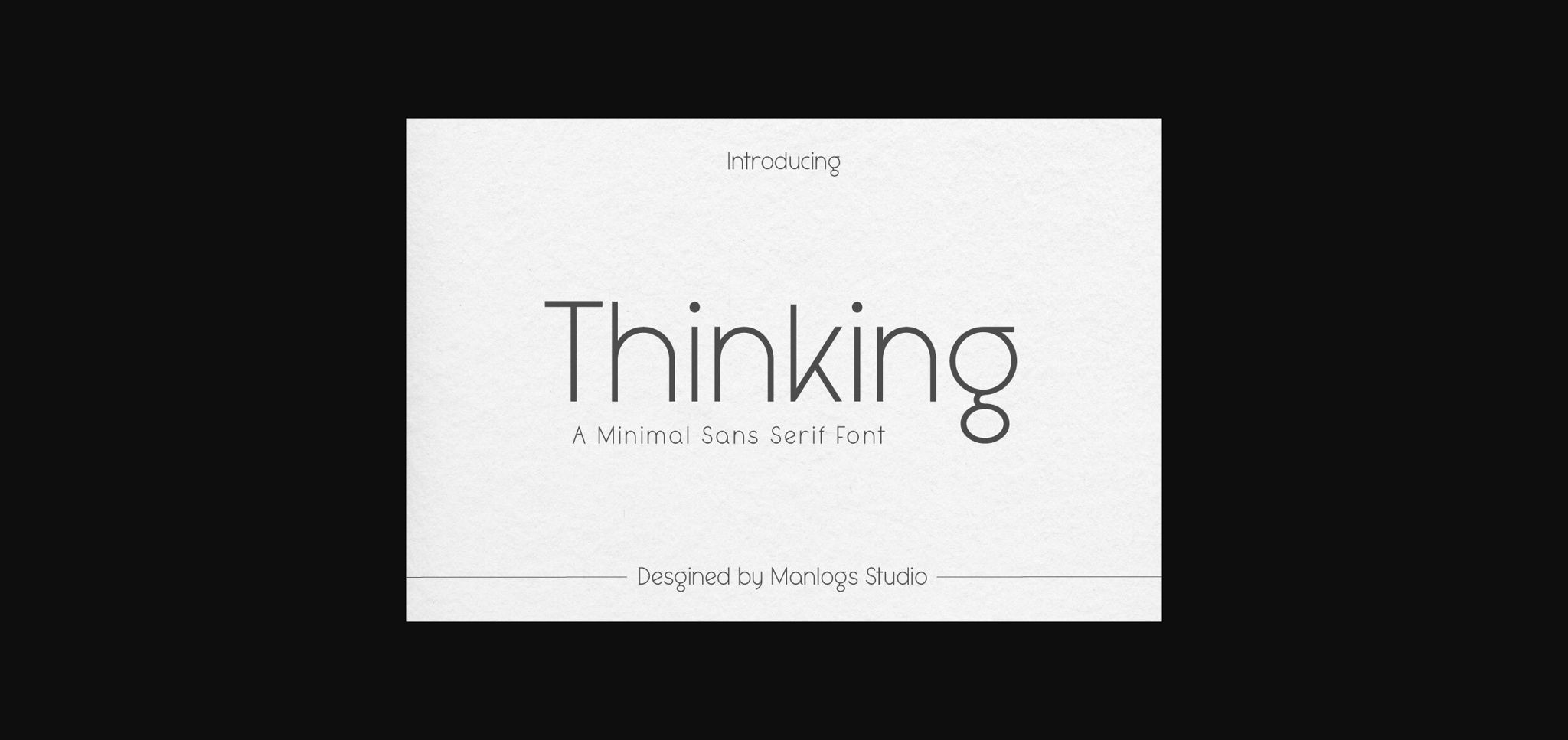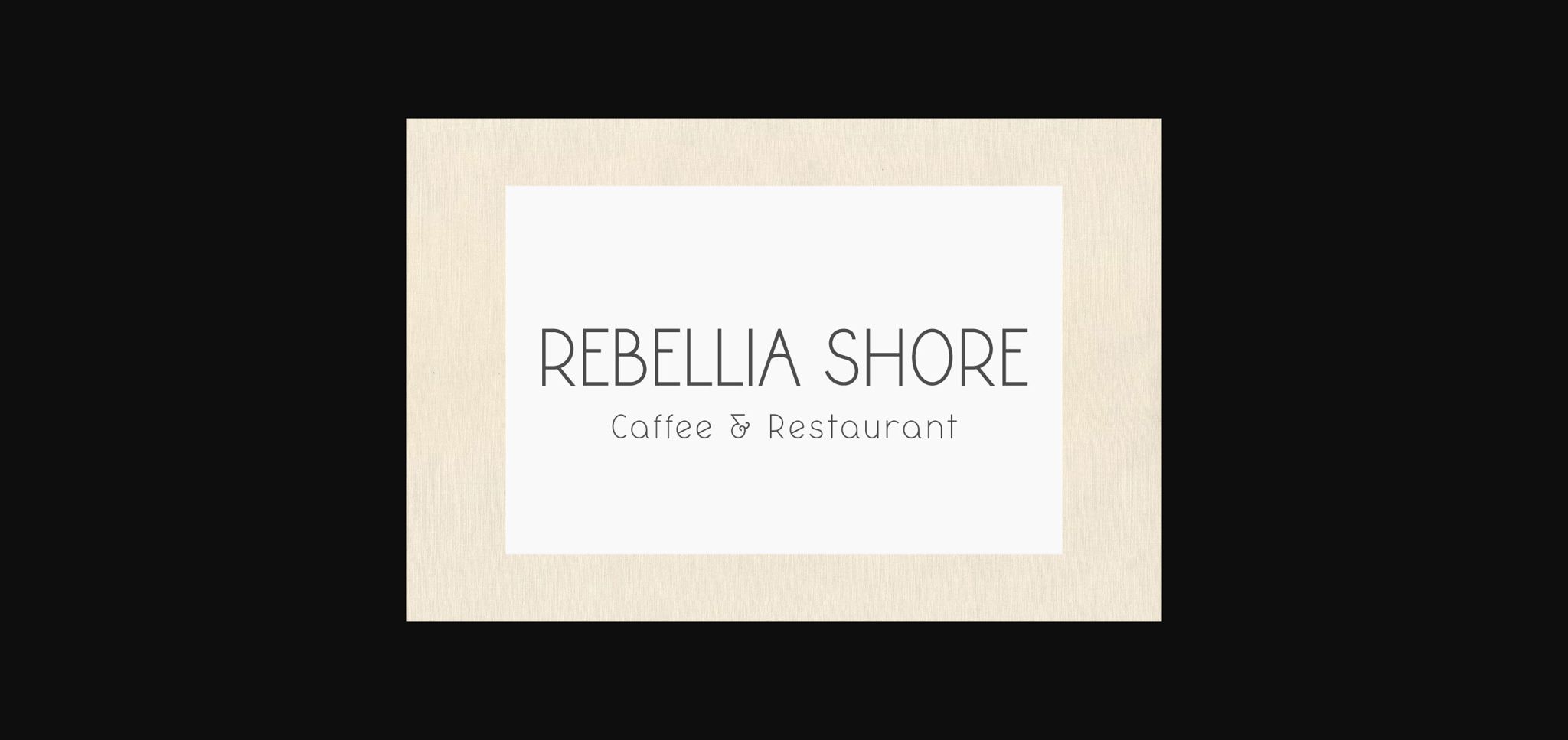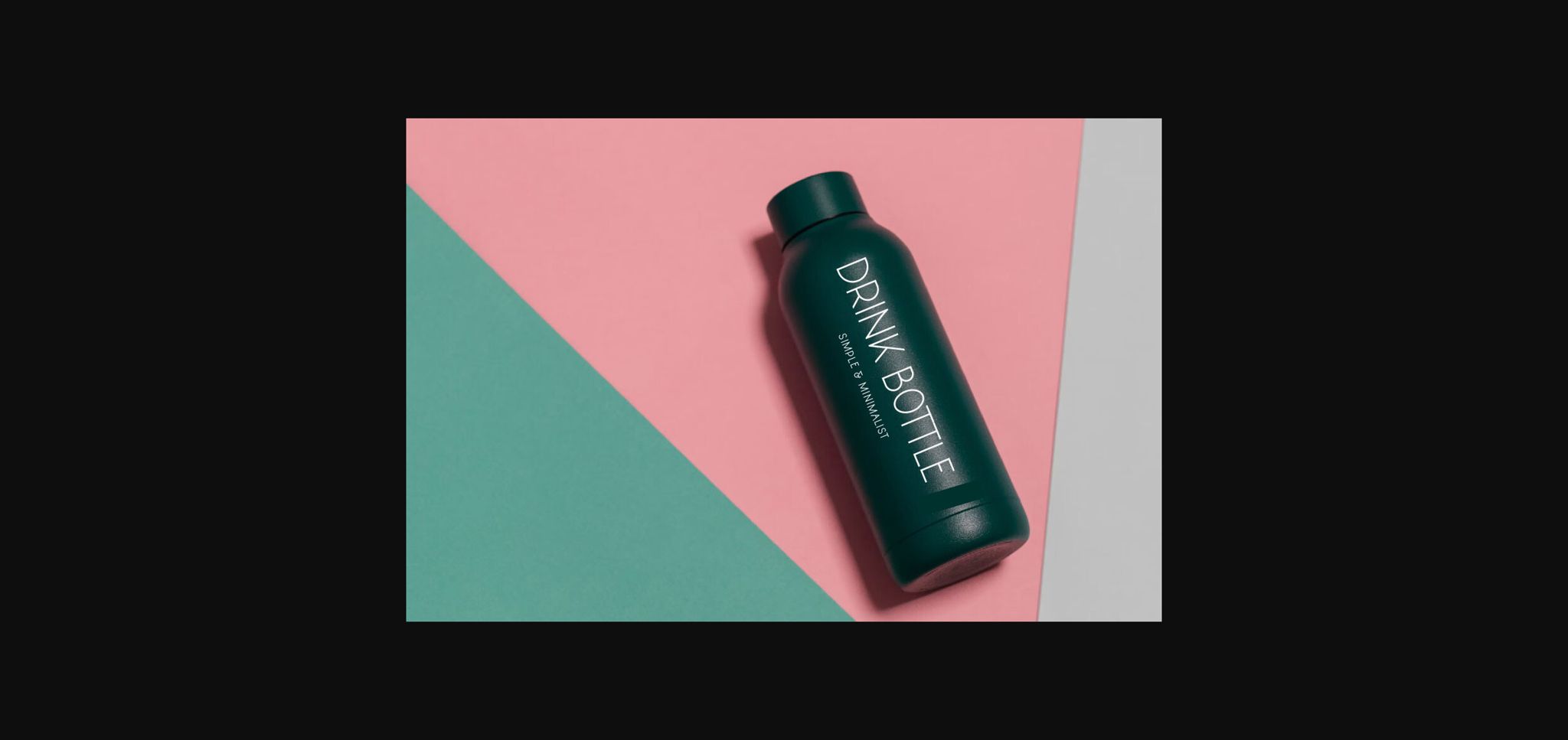
About Thinking Font
Thinking, a minimalist sans-serif font, embodies simplicity and clarity in design. Its clean lines and unfussy letterforms convey a sense of modern elegance. Perfect for projects requiring a subtle, understated aesthetic, Thinking brings a timeless sophistication that ensures readability and versatility across various applications.